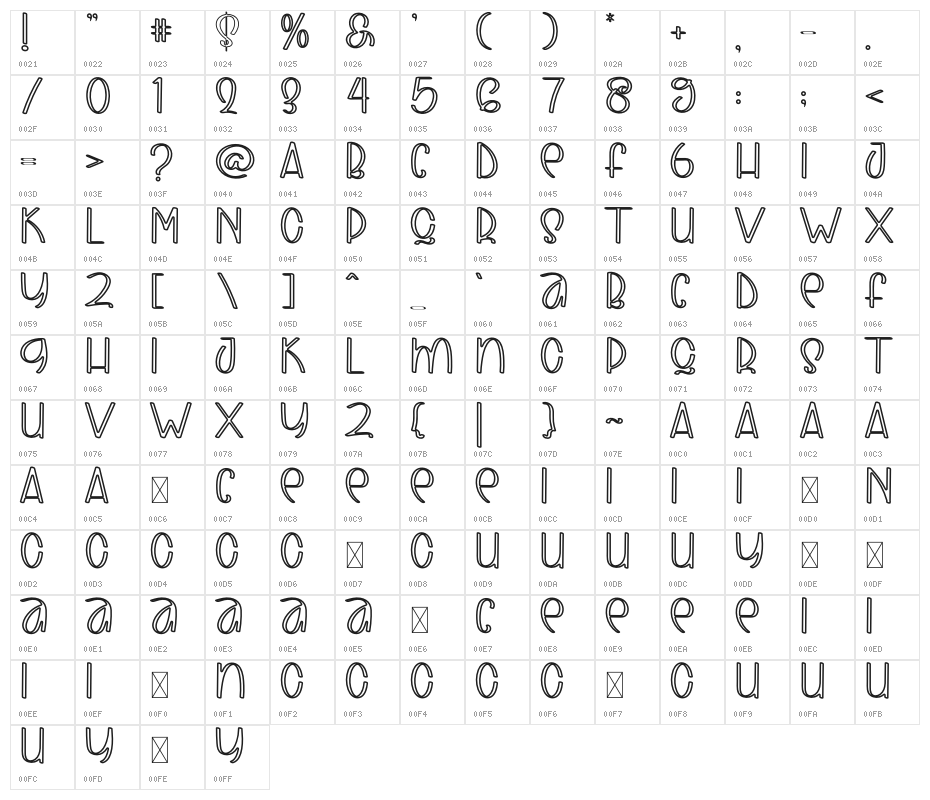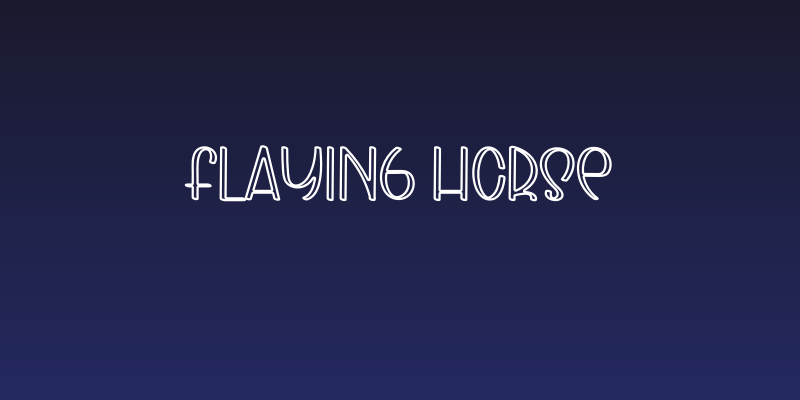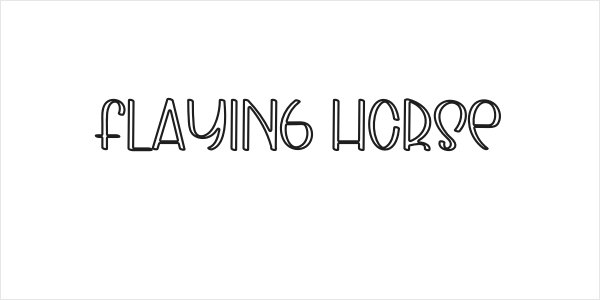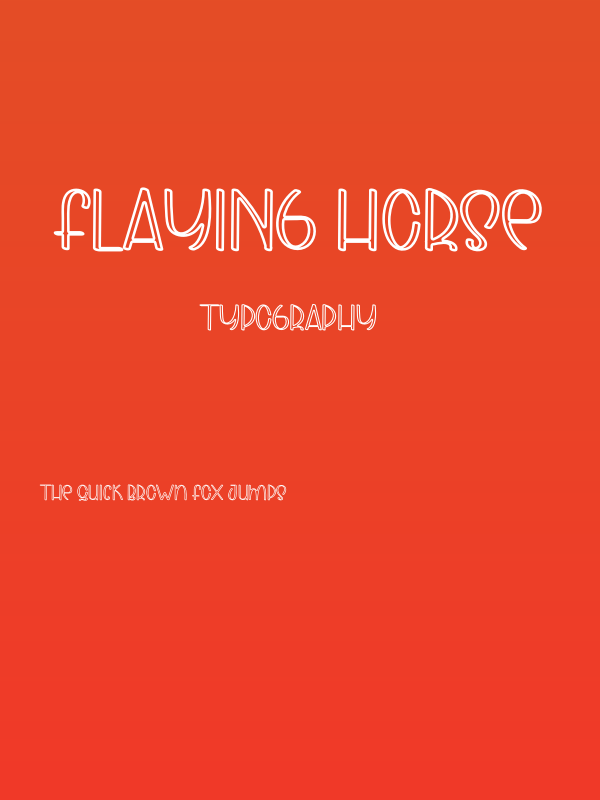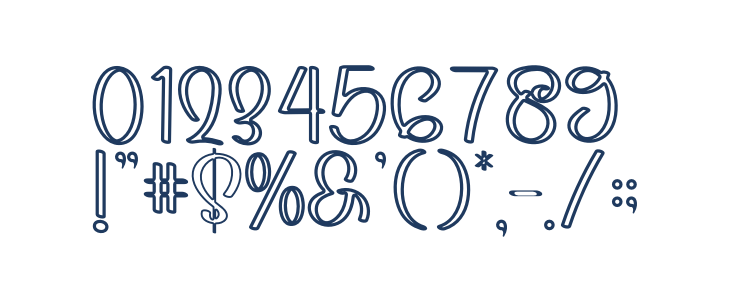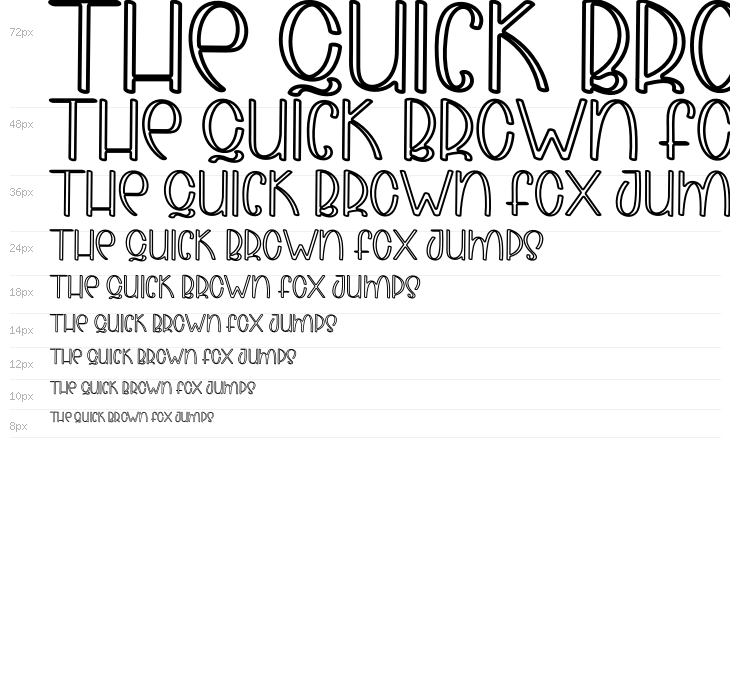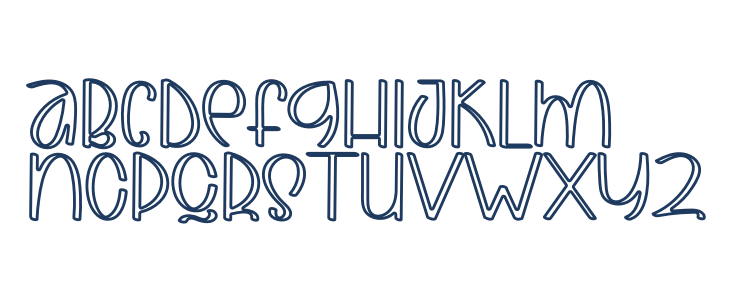
FLAYING HORSE Font
FLAYING HORSE Description
This font features a playful and whimsical design with a unique blend of curves and straight lines. The characters are outlined, giving them a hollow appearance that adds to their decorative nature. Each letter has a distinct personality, with some incorporating unexpected twists and loops. The numbers and special characters follow the same playful style, making the font suitable for creative and informal projects. The overall design is eye-catching and ideal for capturing attention.
| Proposed Projects | Ideal for children's book covers, playful branding, party invitations, and creative posters. |